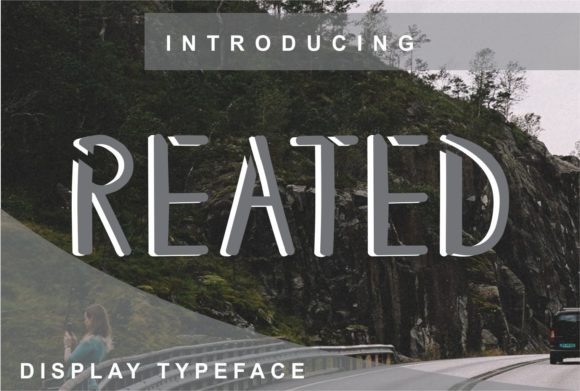
In a world saturated with digital noise, standing out amidst the visual clutter has become an imperative for any modern-day communicator. Reated, our captivating display font, rises to this challenge with finesse, offering a distinctive voice to your creative endeavors.
Beyond its aesthetic allure, Reated possesses an adaptability that makes it a versatile tool for designers seeking impact and versatility. Whether you're crafting logos, posters, social media graphics, or website banners, Reated empowers you to communicate with clarity, style, and memorability.
Imagine the impact of your website design infused with the dynamic energy of Reated. Its carefully crafted letterforms command attention, guaranteeing that your message cuts through the digital cacophony and resonates with your audience. Whether you're introducing a groundbreaking product, promoting an unmissable event, or simply sharing your unique perspective, Reated elevates your words into a visual symphony that captivates and compels.
Social media, the modern-day agora, demands a visual language that speaks louder than words. Reated's distinctive character transforms your social media posts into eye-catching magnets, attracting followers and sparking engagement like never before. Its bold presence cuts through the monotonous scroll, ensuring that your message is seen, heard, and shared.
In the realm of graphic design, Reated emerges as a versatile chameleon, seamlessly adapting to a myriad of creative projects. Its adaptability makes it the perfect choice for creating posters that demand attention, flyers that entice, and brochures that inform and inspire. Unleash your creativity and let Reated amplify your message in ways you never thought possible.
And for those who dare to venture into the digital realm, Reated becomes your secret weapon in crafting website designs that captivate and convert. Its inherent SEO-friendliness ensures that your website ranks higher in search engine results, attracting a steady stream of potential customers.